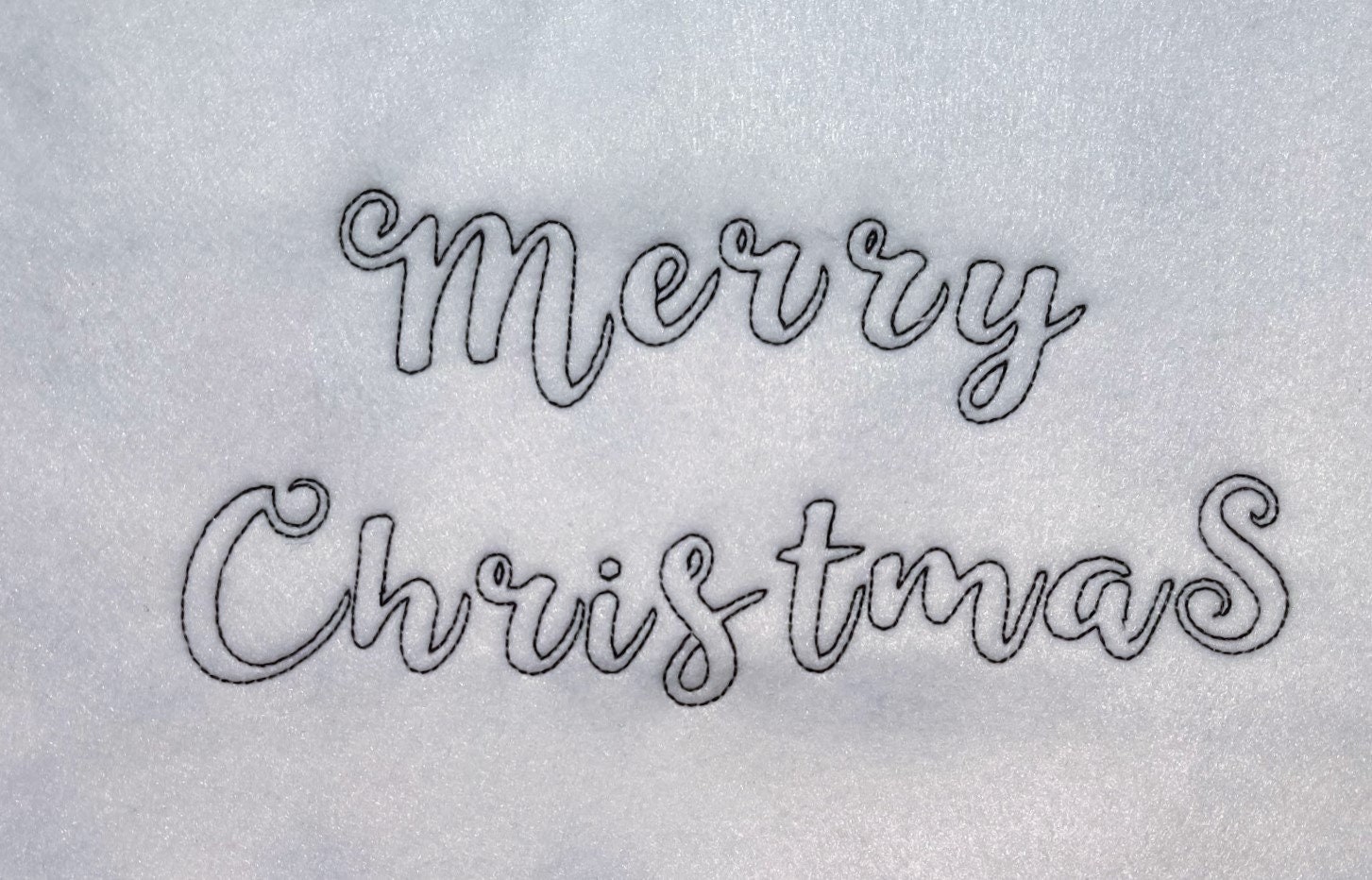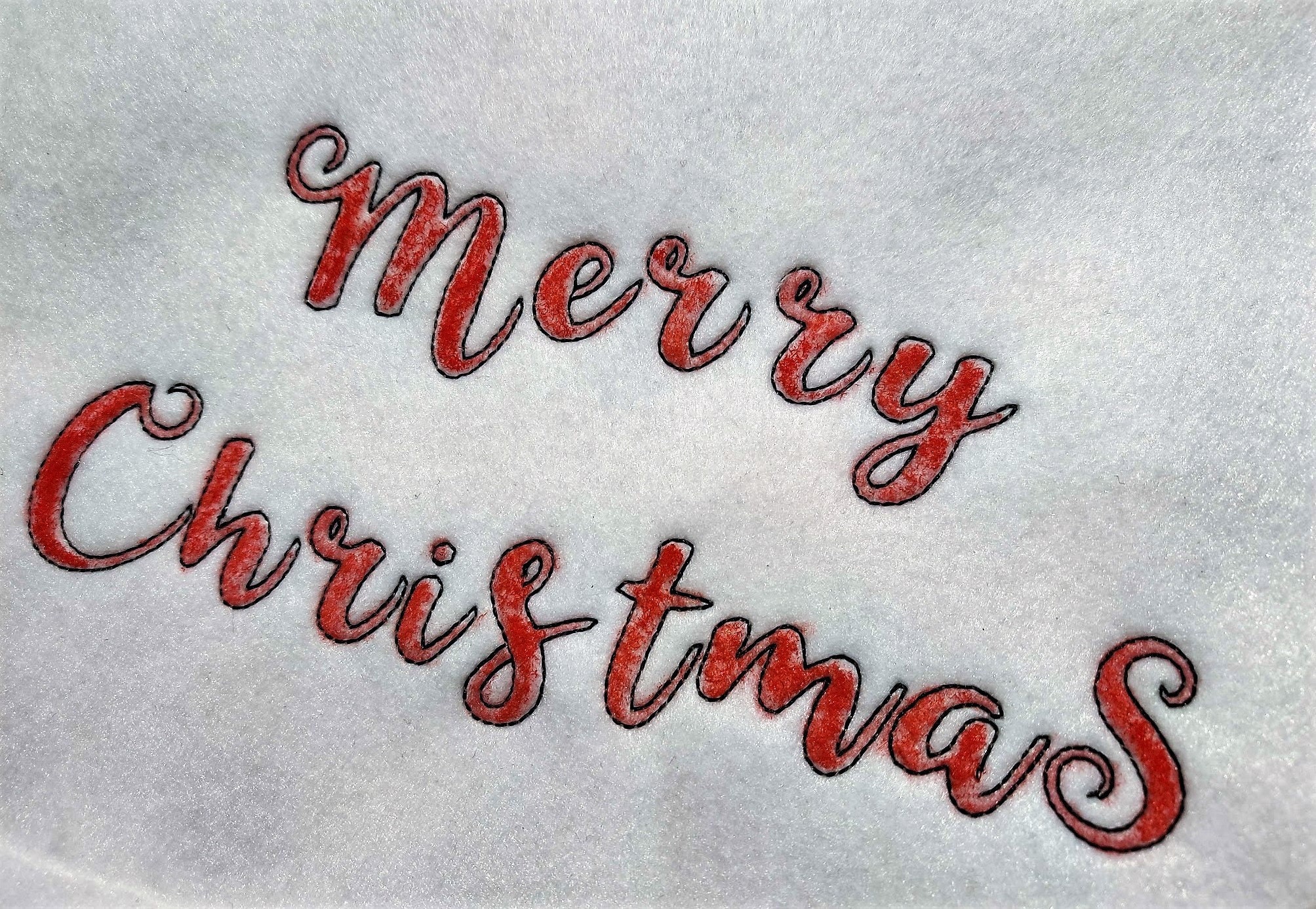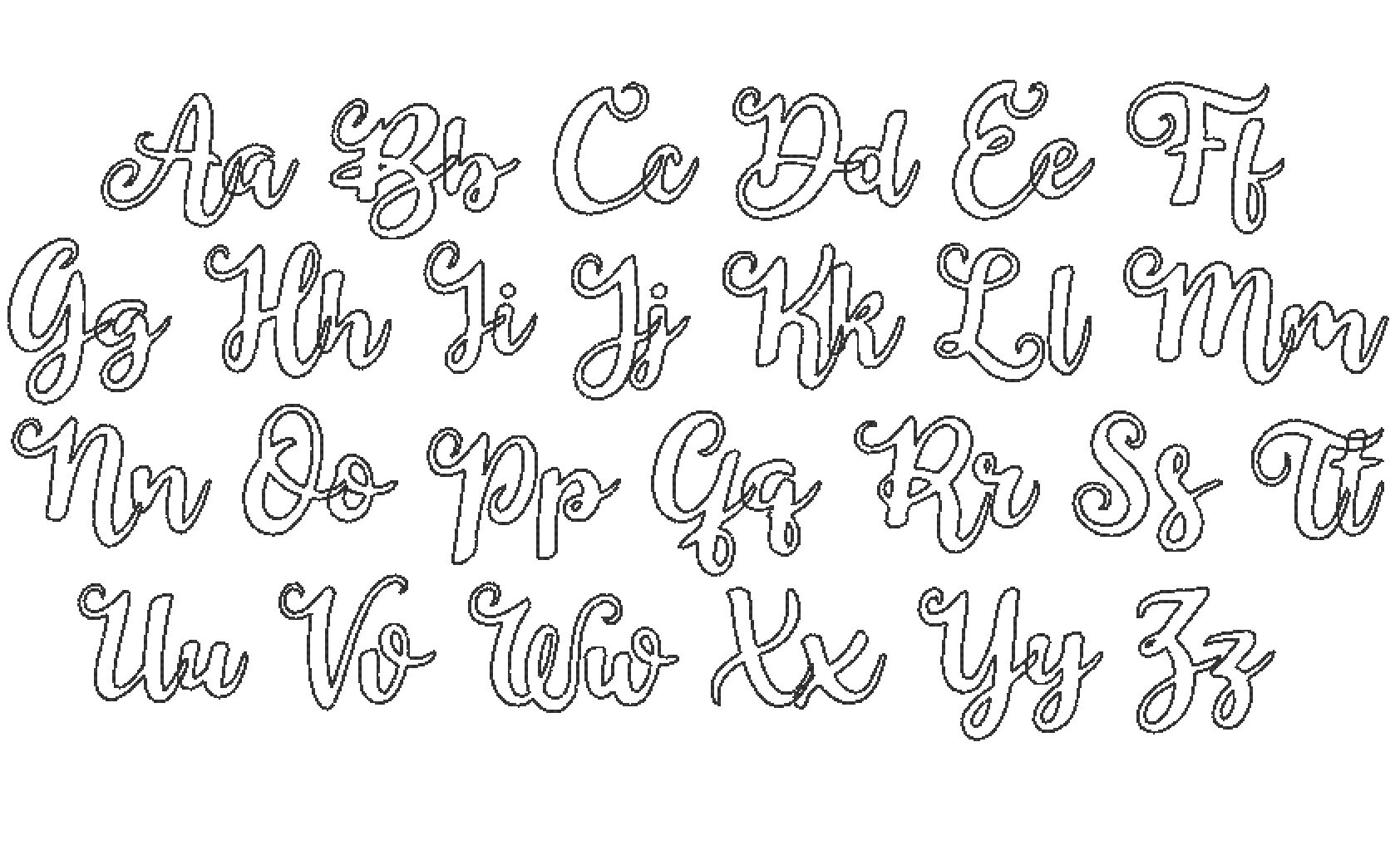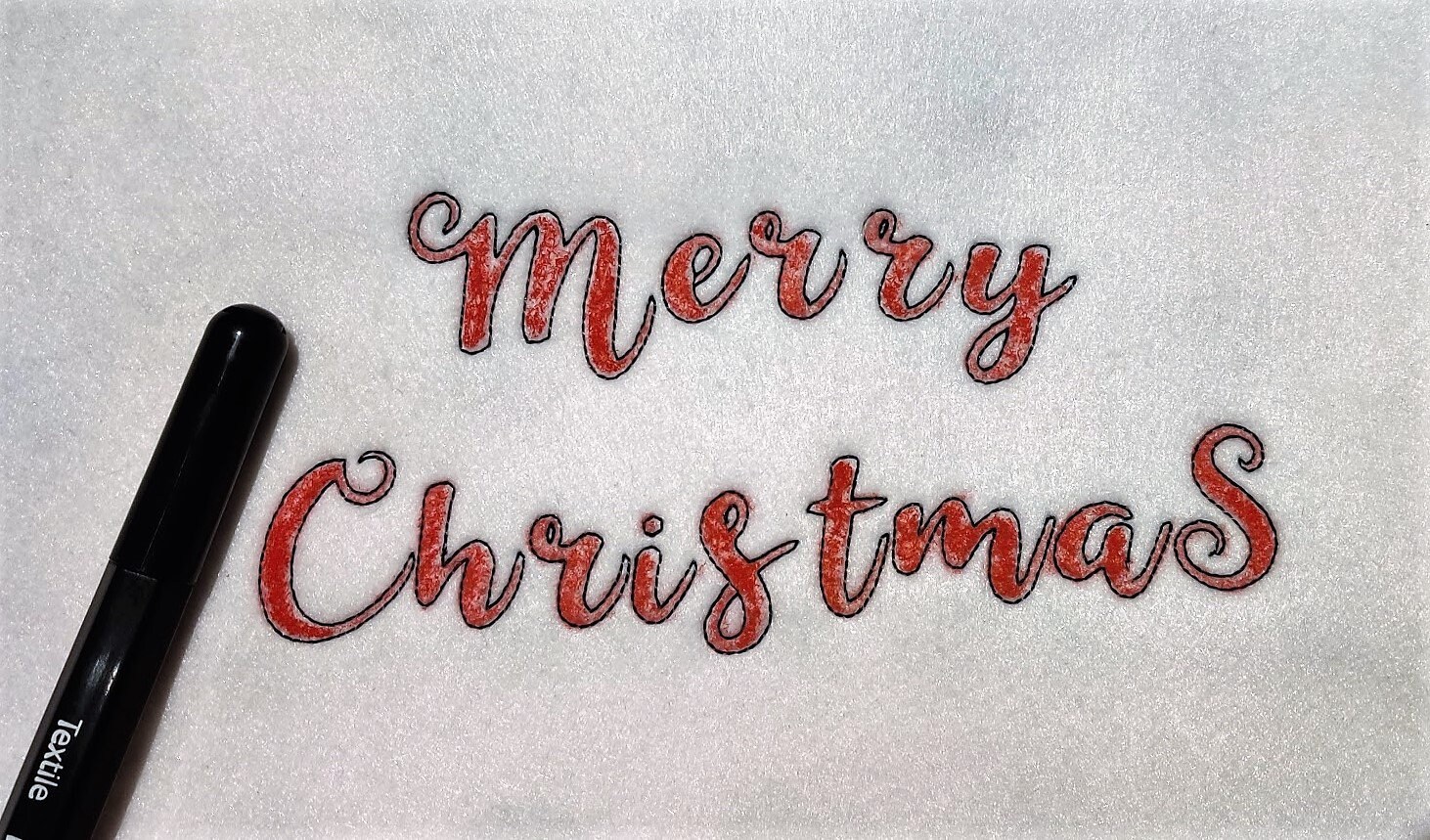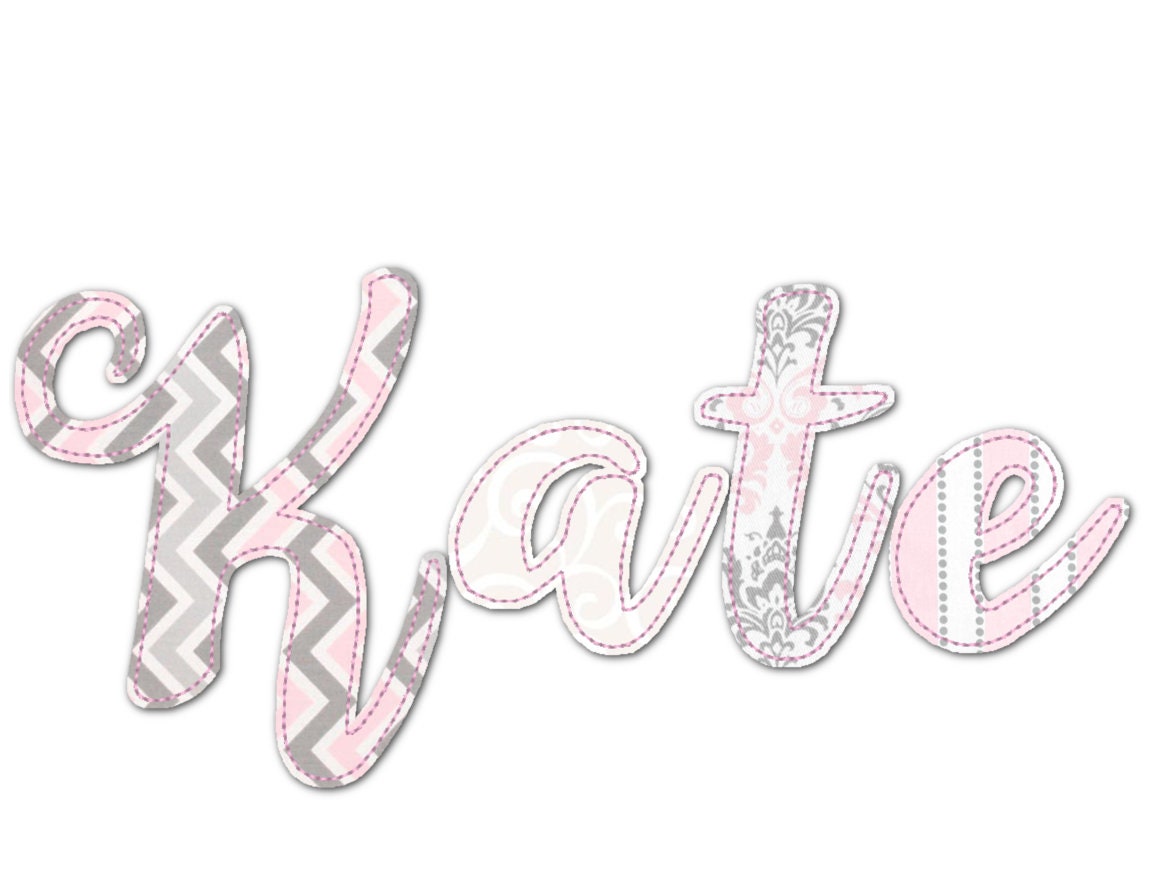
Free Edge Raggedy Applique FONT handwritten script Alphabet Monogram kids machine embroidery designs sizes 1.3up to 5 inches BX
Entire alphabet uppercase and lowercase letters.
Raggedy edge applique design
You can stitch it as is, and use textile markers to color the letters.